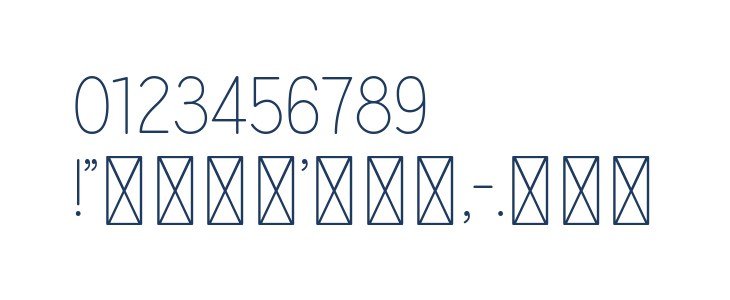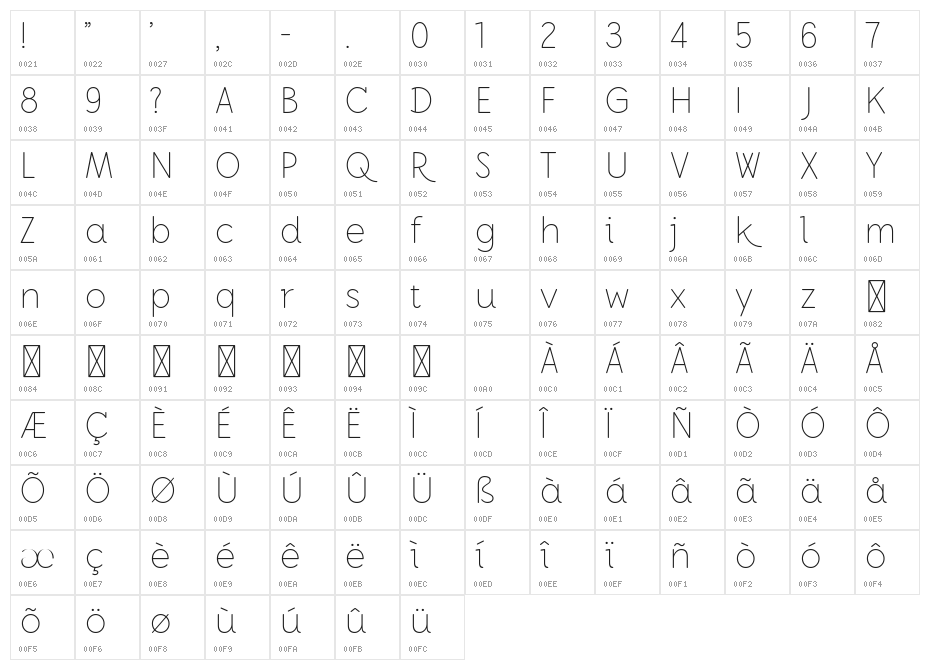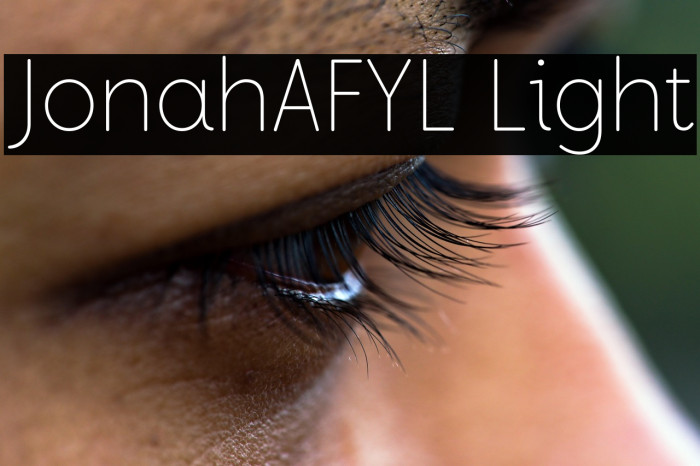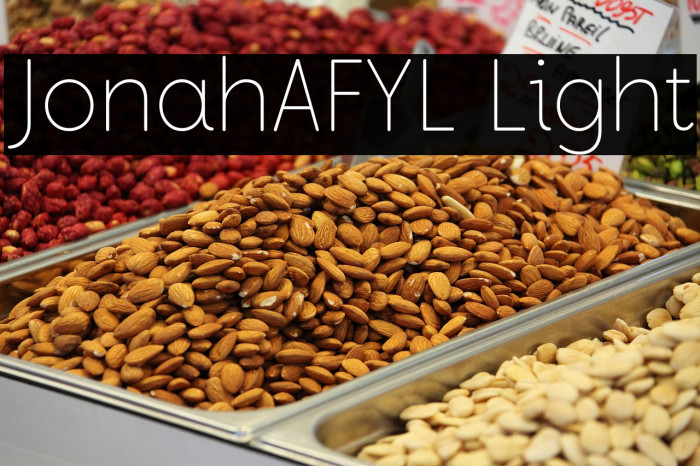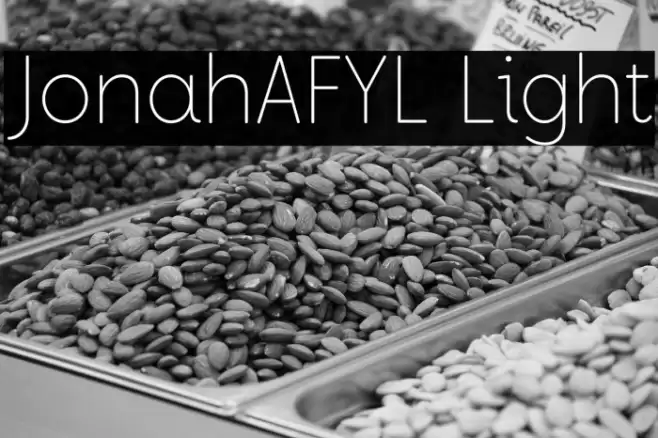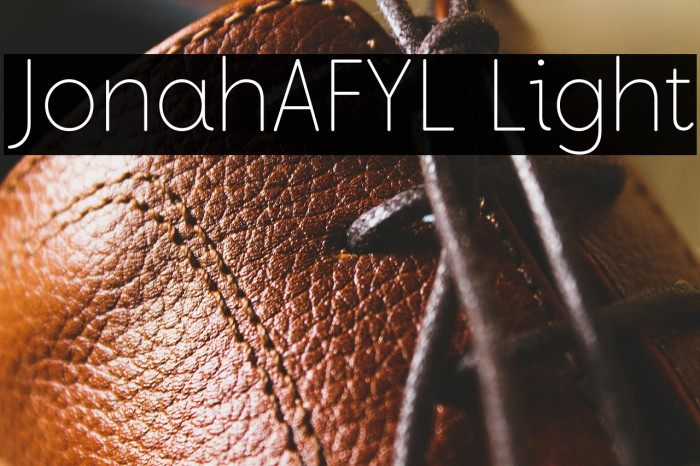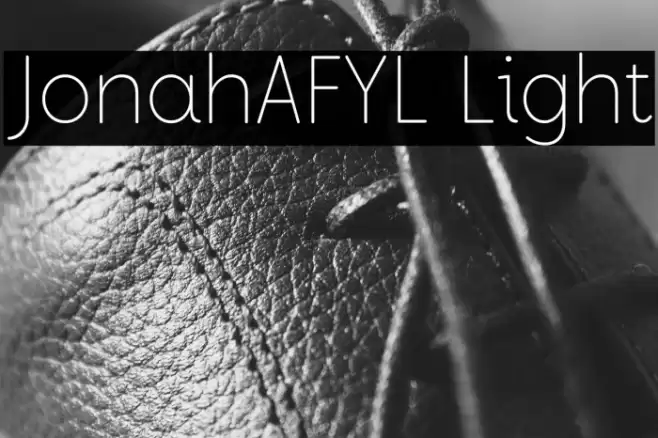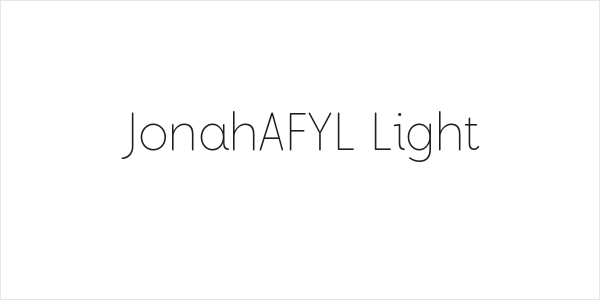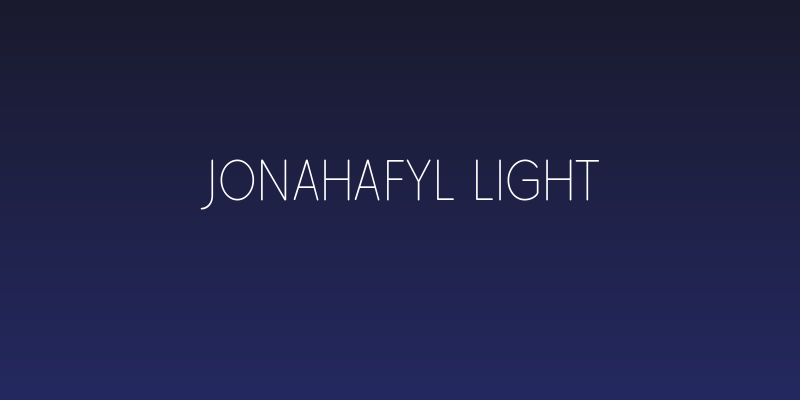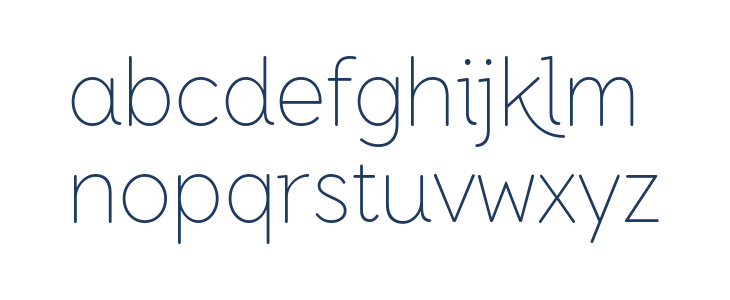
JonahAFYL Light Font
JonahAFYL Light Description
This font features a clean and minimalist design with a modern aesthetic. The characters are crafted with a uniform stroke width, giving it a sleek and elegant appearance. The uppercase and lowercase letters are well-proportioned, maintaining a consistent height and width that enhances readability. The numerals are distinct and clear, making them suitable for various applications. The special characters are simple yet effective, complementing the overall style of the font. Its simplicity and clarity make it versatile for both digital and print media.
| Proposed Projects | Ideal for branding, web design, corporate materials, and editorial layouts. |